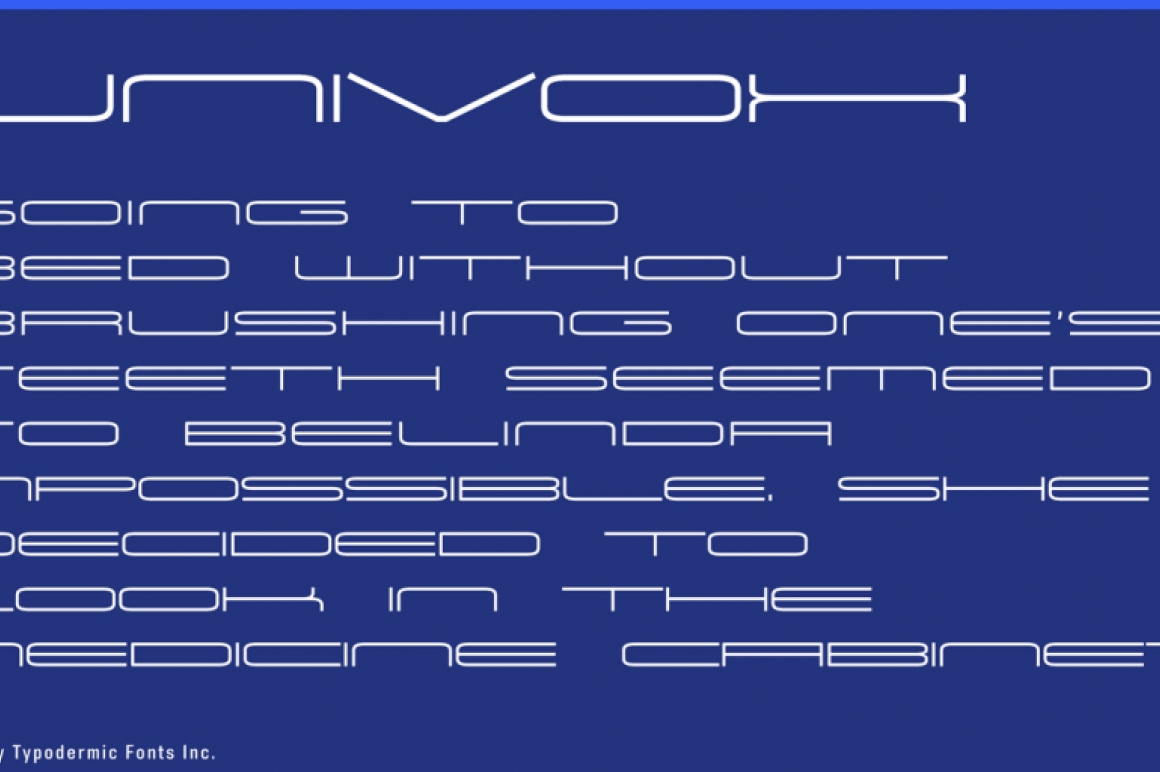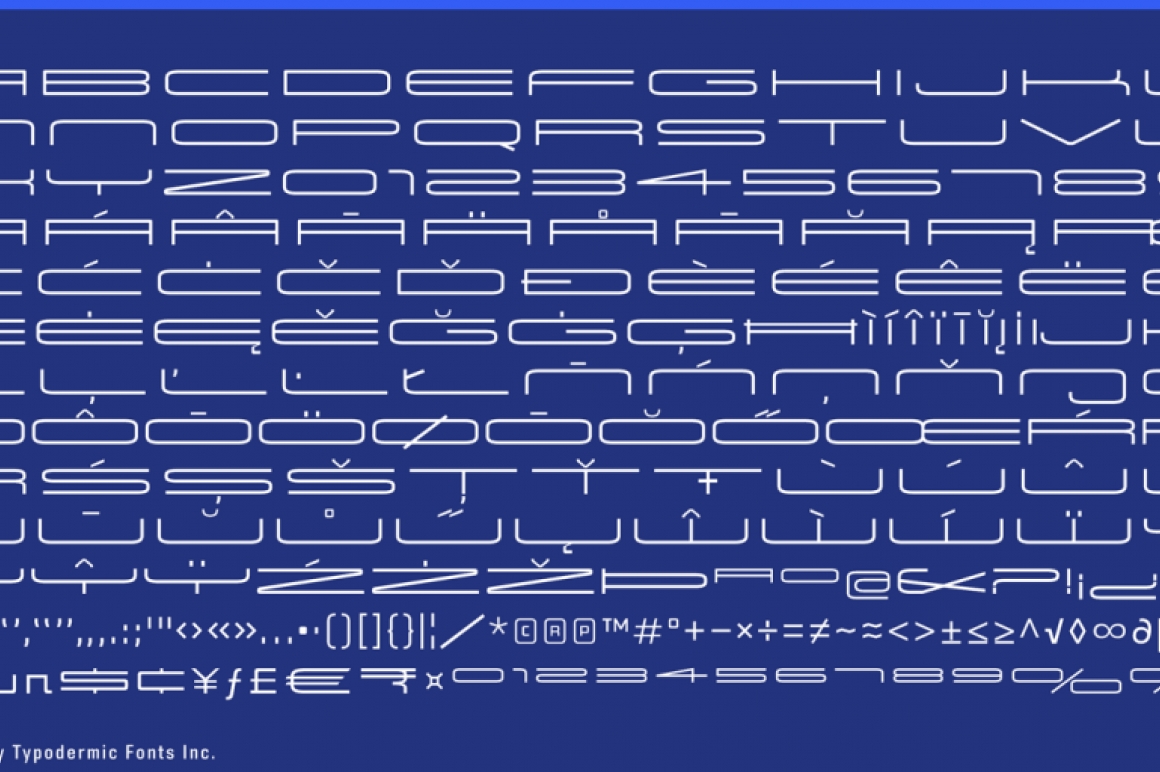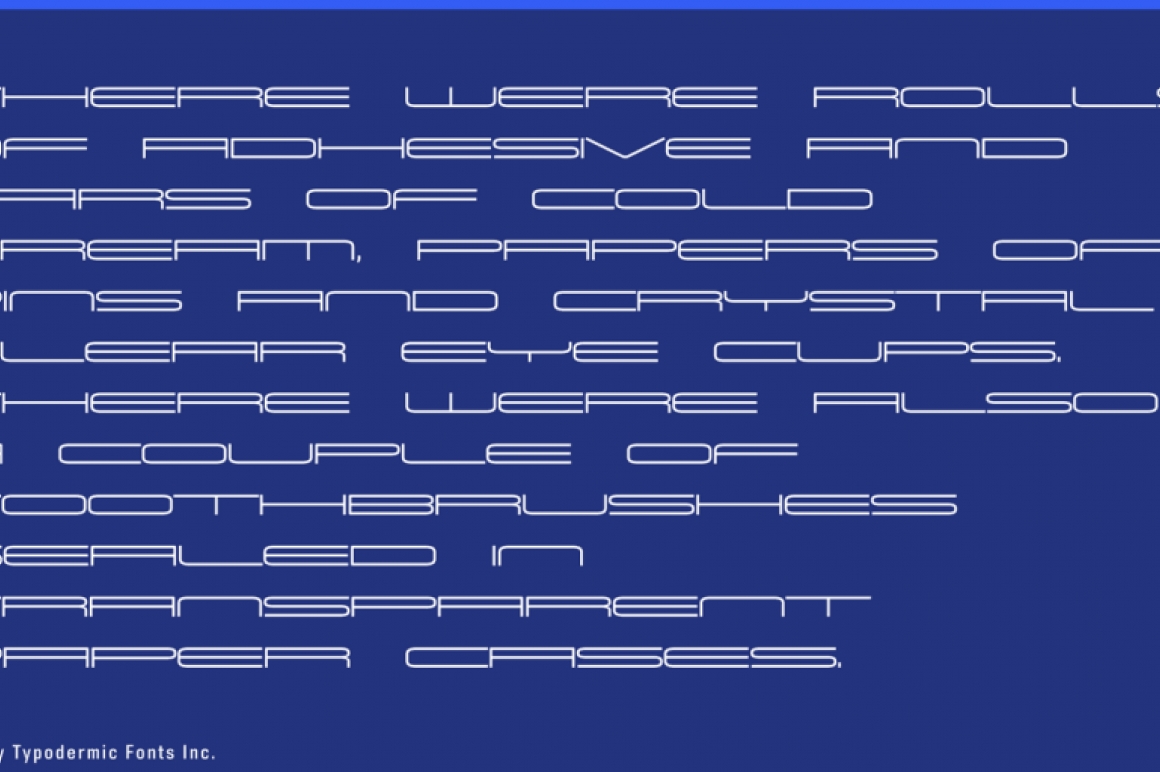
Univox
Univox is a splendidly wide techno font with thin, consistent strokes created in 1996. Univox has been updated with improved vertical metrics for cross-browser web performance. More languages are supported and accents have been redesigned. Spacing and kerning has been improved. More punctuation and math symbols have been added, as well as fractions and numeric ordinals. Most characters have been redrawn with nicer curves, eliminating the “squeezed” look of the original.